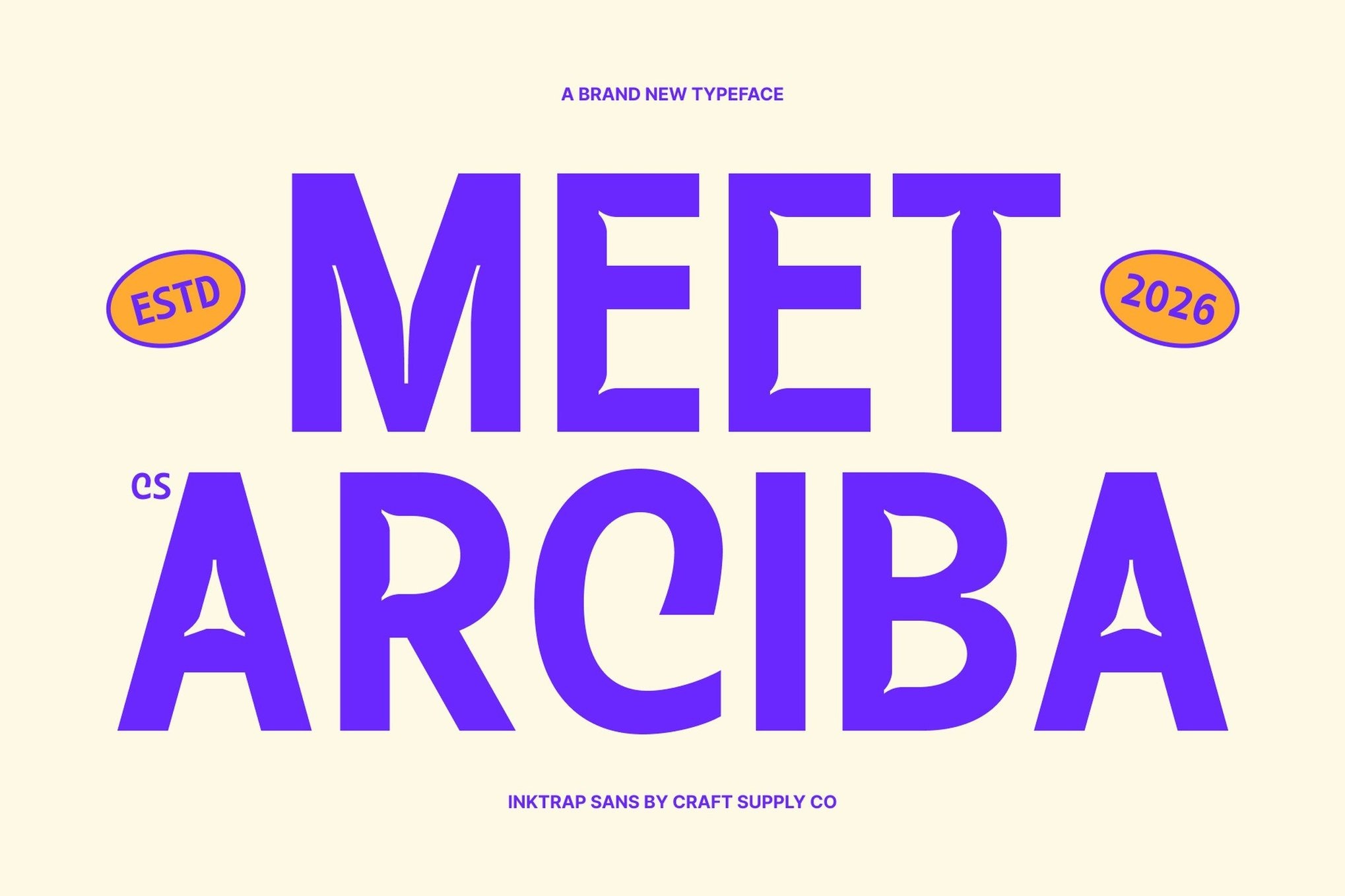
Arciba – Modern Sans Serif Font
Arciba – Modern Sans Serif Font – Display Inktrap Sans Serif Font: Where Modern Simplicity Meets Distinctive Character Clean Contemporary Forms with Expressive Inktrap Details This is a display sans serif font featuring distinctive inktrap details that add character and charm to its clean, contemporary construction. Blending modern geometric forms with precisely crafted cut-ins, it creates a striking visual identity that feels bold, refined, and instantly recognizable.
Modern Clarity with Functional Design This font offers exceptional readability while introducing subtle inktrap details that enhance both function and aesthetics. These distinctive cuts provide a technical, contemporary appearance, giving the font a unique personality without compromising its clean and professional look.
Bold Personality with Contemporary Versatility By combining sleek sans serif geometry with expressive inktrap styling, this font strikes the perfect balance between modern simplicity and visual character. Its confident proportions and distinctive detailing make it suitable for attention-grabbing headlines while remaining versatile enough for a wide variety of branding and display applications.
Perfect for Branding, Posters, and Contemporary Display Projects Perfect for branding, logos, posters, editorial headlines, packaging, advertising campaigns, technology brands, creative agencies, signage, social media graphics, product identities, and modern visual communications. Its fusion of clean sans serif construction, distinctive inktrap details, and contemporary aesthetics makes it an excellent choice for projects that demand originality, professionalism, and strong visual impact. With its combination of modern clarity and expressive character, its delivers a distinctive and memorable typographic statement.